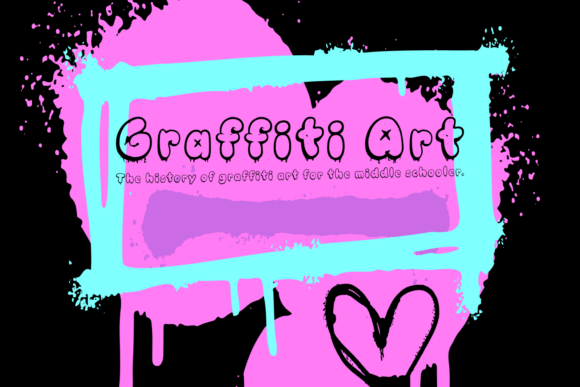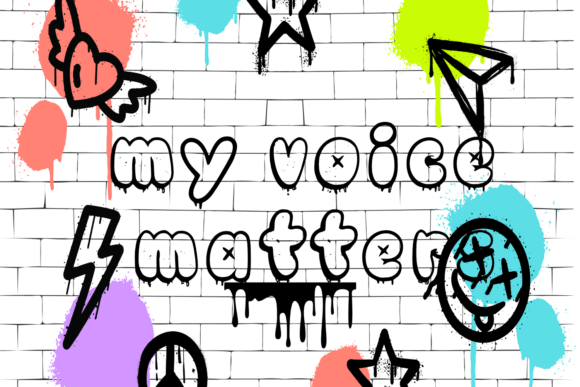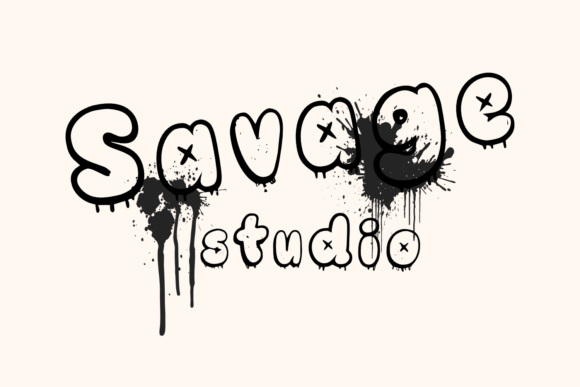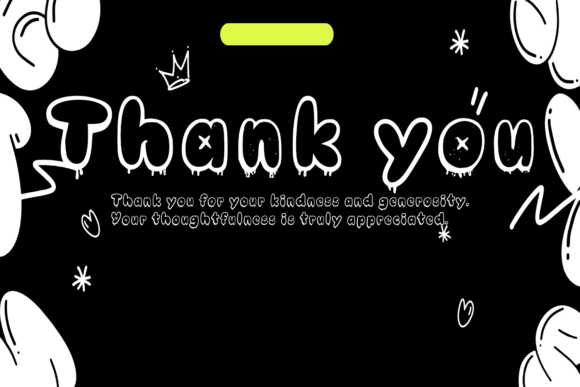
Introduction to Murisa Lupe Font Font
Fonts play a crucial role in design, and the Murisa Lupe Font font is a typeface that brings both character and versatility to any project. Whether you’re working on a branding project, a website, or a print design, the Murisa Lupe Font font offers a unique style that can elevate your work.
Step into the eerie elegance of Murisa Lupe, a font that drips with personality—literally.
Each character oozes with a gooey, melting charm, conjuring visions of haunted halls, mischievous spirits, and playful chaos But don’t be fooled by its spooky silhouette—this typeface is a work of art.
Key Features of Murisa Lupe Font Font
Why Choose Murisa Lupe Font Font?
The Murisa Lupe Font font is more than just a typeface – it’s a design tool that helps you communicate your message with style and clarity. Its unique character set and versatile design make it suitable for a wide range of applications, from elegant invitations to bold headlines.
With its carefully crafted letterforms and balanced proportions, the Murisa Lupe Font font ensures readability and visual appeal across all mediums.
What makes Murisa Lupe Font font special?
The Murisa Lupe Font font stands out with its unique design, exceptional readability, and versatility across various design applications.